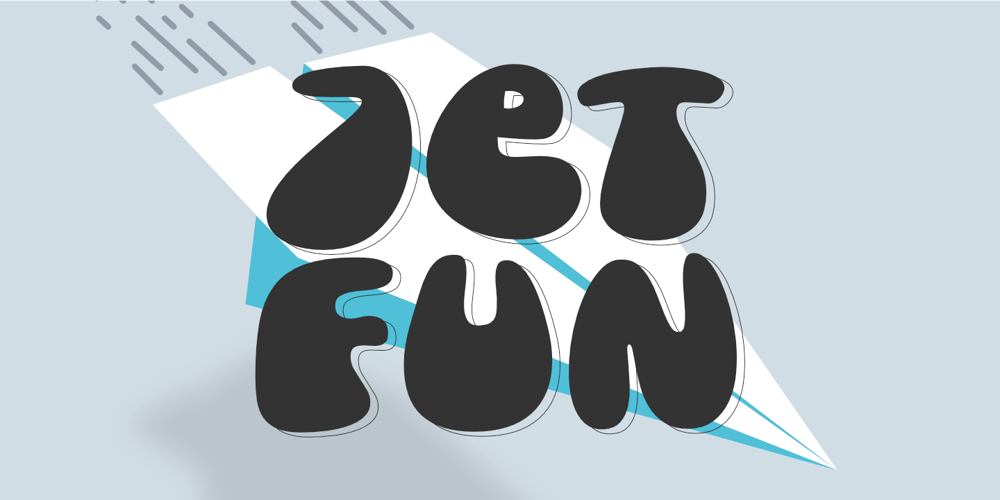
Jetfun
Jetfun font
Jetfun Font Family was designed by Aldy Sidik and published by Epiclinez. Jetfun contains 1 styles and family package options. Introducing Jetfun, a fun font for making your messages pop and sizzle! With its bold and groovy style, this font is perfect for creating eye-catching headlines that demand attention. Whether you’re designing a logo, poster, or movie title, Jetfun brings an edgy and dynamic look to your work that’s sure to stand out from the crowd.Jetfun features : Standard Latin All-Caps Numbers, symbols, and punctuations Multilingual Support. Fully accessible without additional design software Simple Installations Works on PC & Mac Thank You.